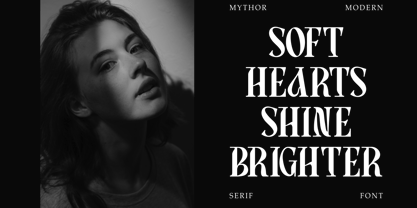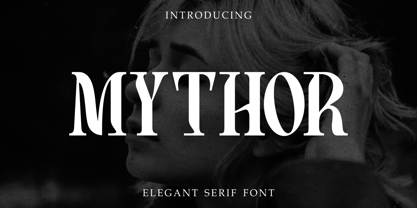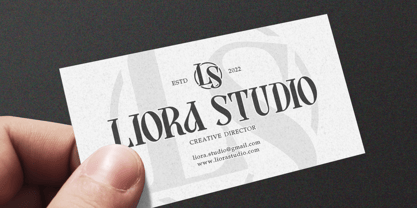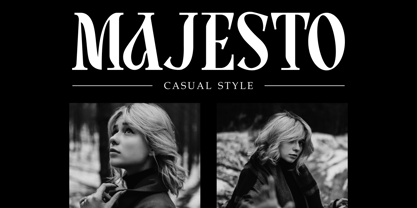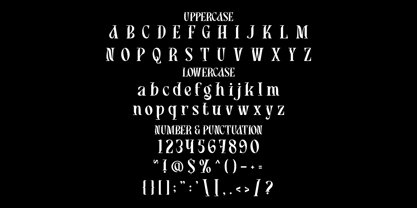
Mythor
by Shanaf
The Mythor Font Family was designed by Yesie Erma Yunita and published by Shanaf. Mythor contains 1 styles. More about this family
Mythor Modern Serif Font is designed with graceful proportions and a calm visual structure. The letterforms appear tall and well balanced, giving text a confident and composed presence. Stroke contrast stays moderate, combining smooth curves with firm vertical lines. Serifs feel clean and controlled, adding elegance without excessive decoration. The overall weight sits in a comfortable medium range, which keeps headlines readable and expressive. Spacing between letters feels open, helping words flow naturally in logos and titles. The shapes avoid sharp aggression and focus on softness and clarity. Mythor Modern Serif Font carries a refined tone that supports modern identity needs. Its structure works well for display use where personality and readability must coexist. The style fits modern, elegant, and personal branding themes with a timeless feel. This font suits creative studios, personal brands, consultants, photographers, designers, writers, lifestyle brands, and boutique businesses. It works effectively for logos, branding systems, business cards, posters, advertisements, headlines, invitations, packaging, magazine titles, book covers, greeting cards, movie titles, stickers, and editorial layouts. The serif character adds trust and maturity, while the modern structure keeps the design relevant. It helps brands communicate professionalism, warmth, and individuality. Multilingual support allows consistent usage across international projects. The font performs well in both print and digital environments. Mythor Modern Serif Font helps establish a clear and memorable personal identity through typography.
Designers: Yesie Erma Yunita
Foundry: Shanaf